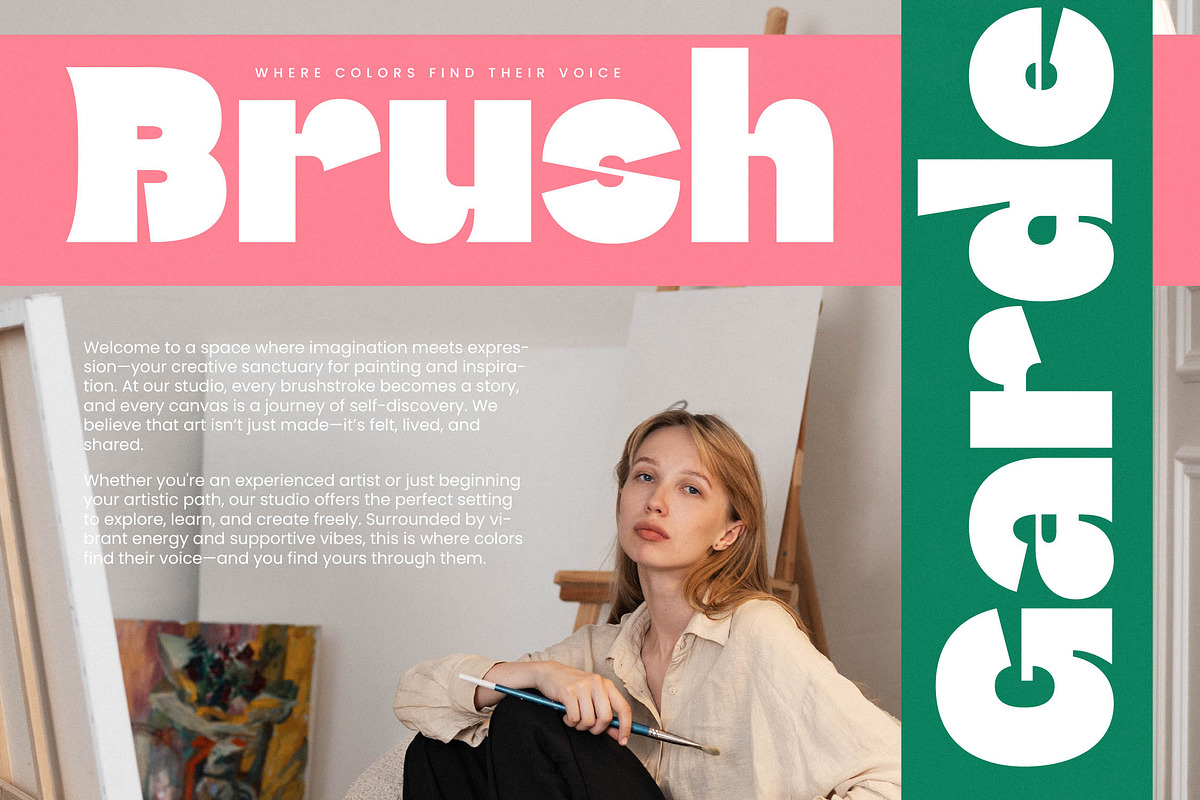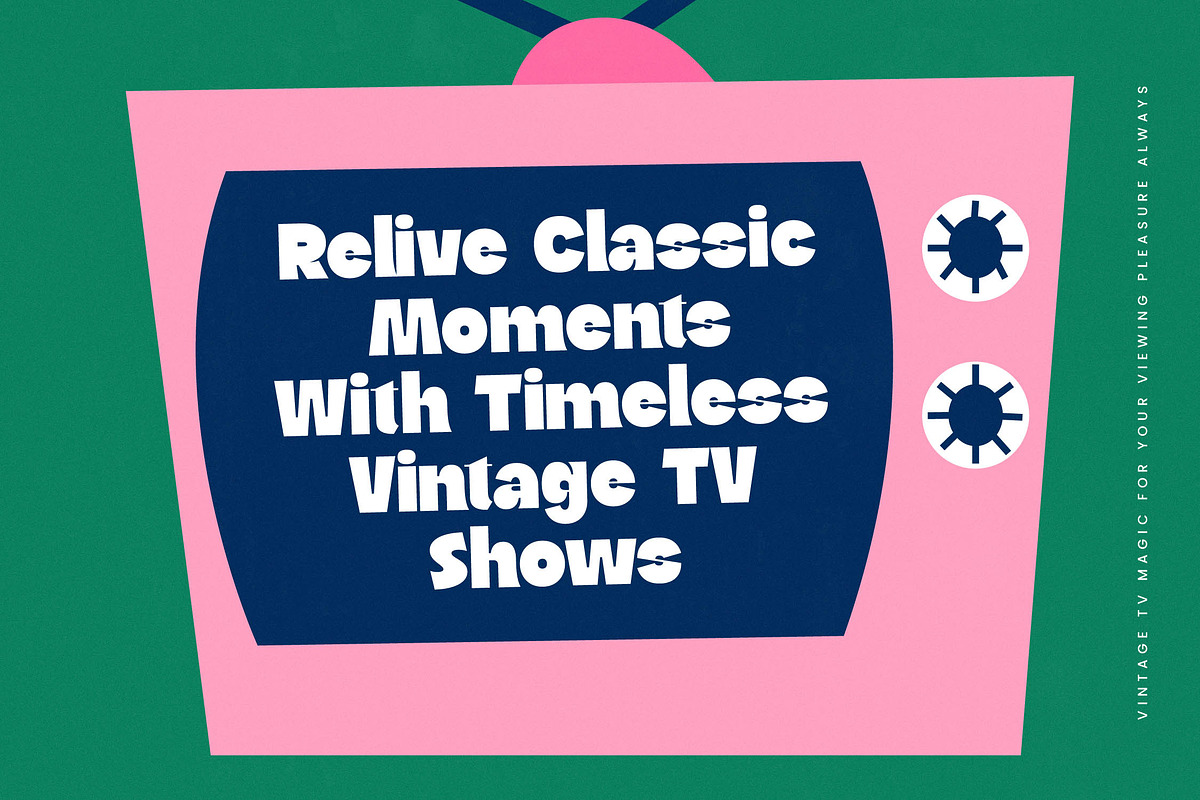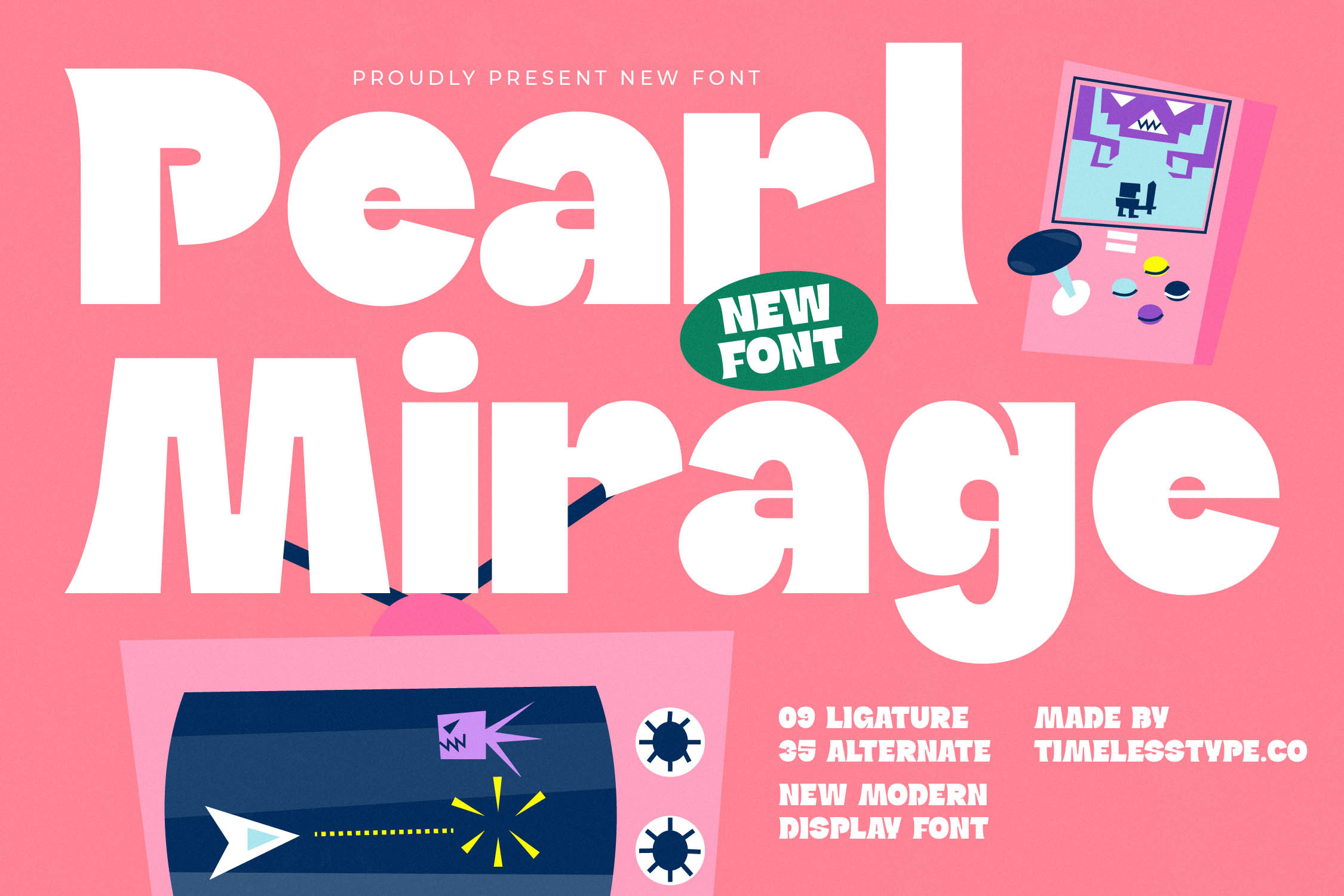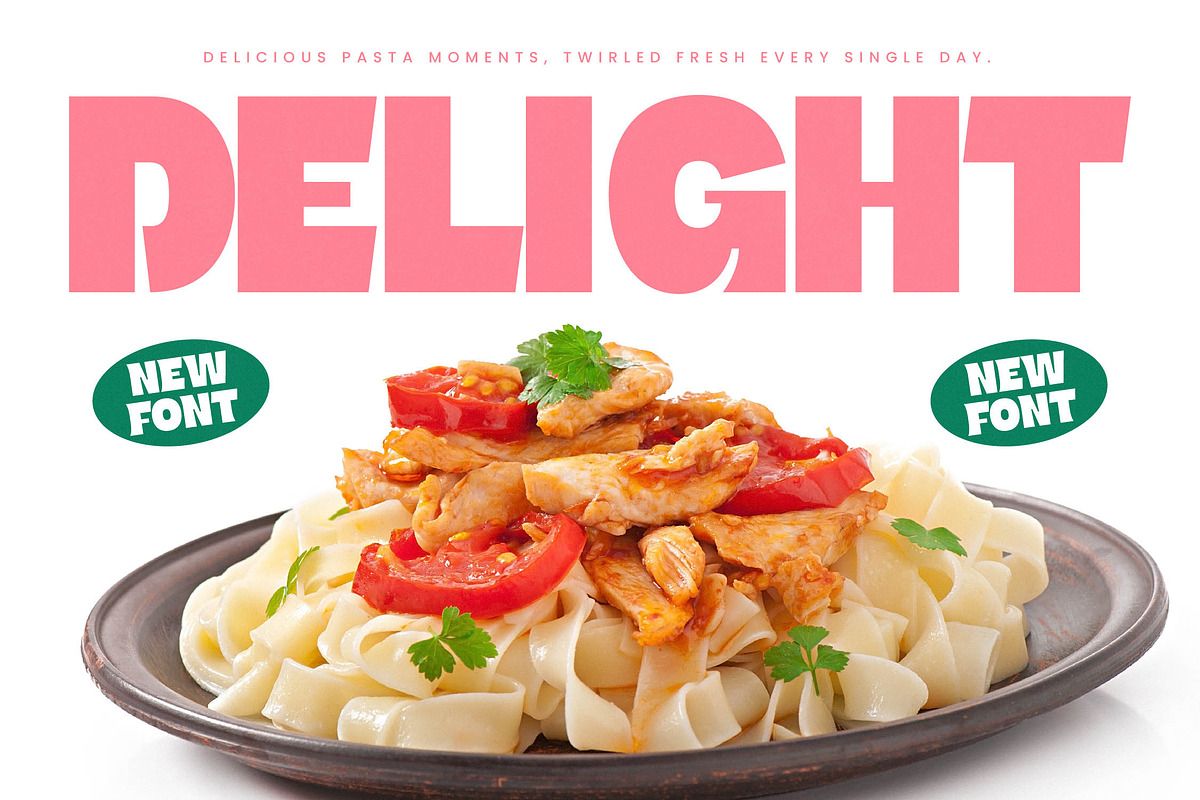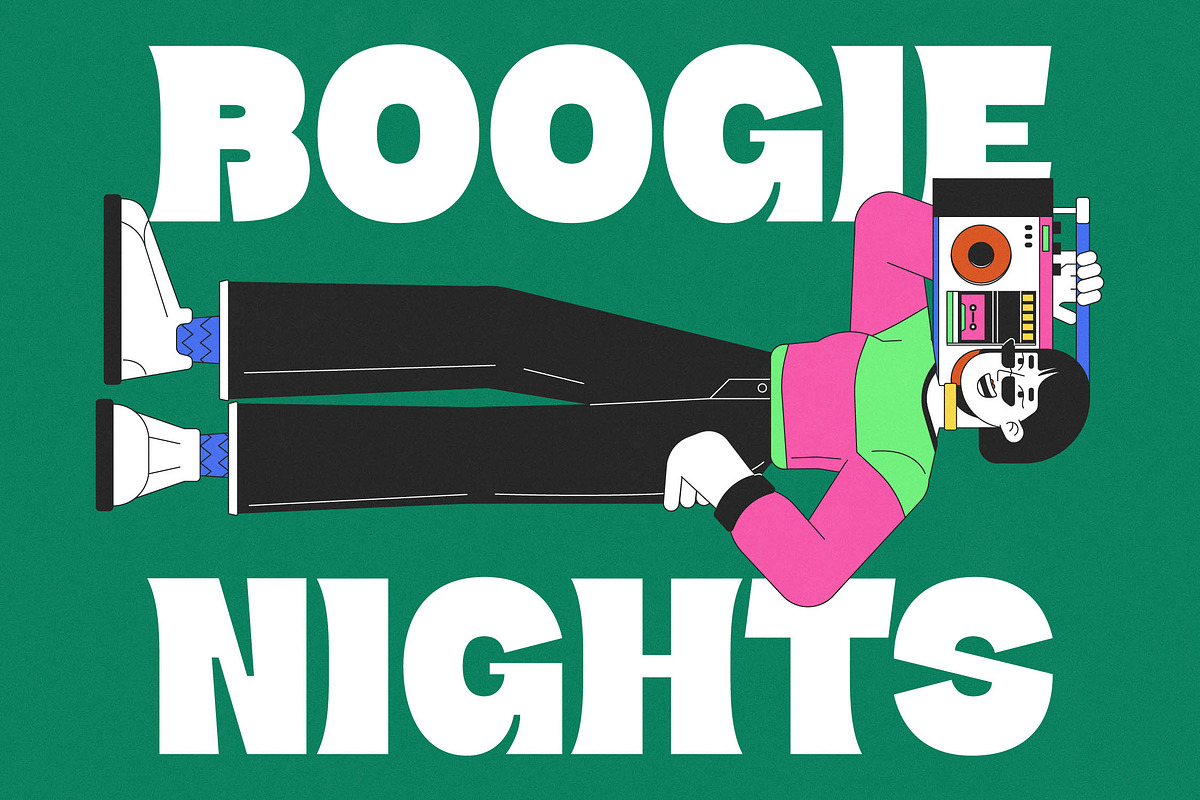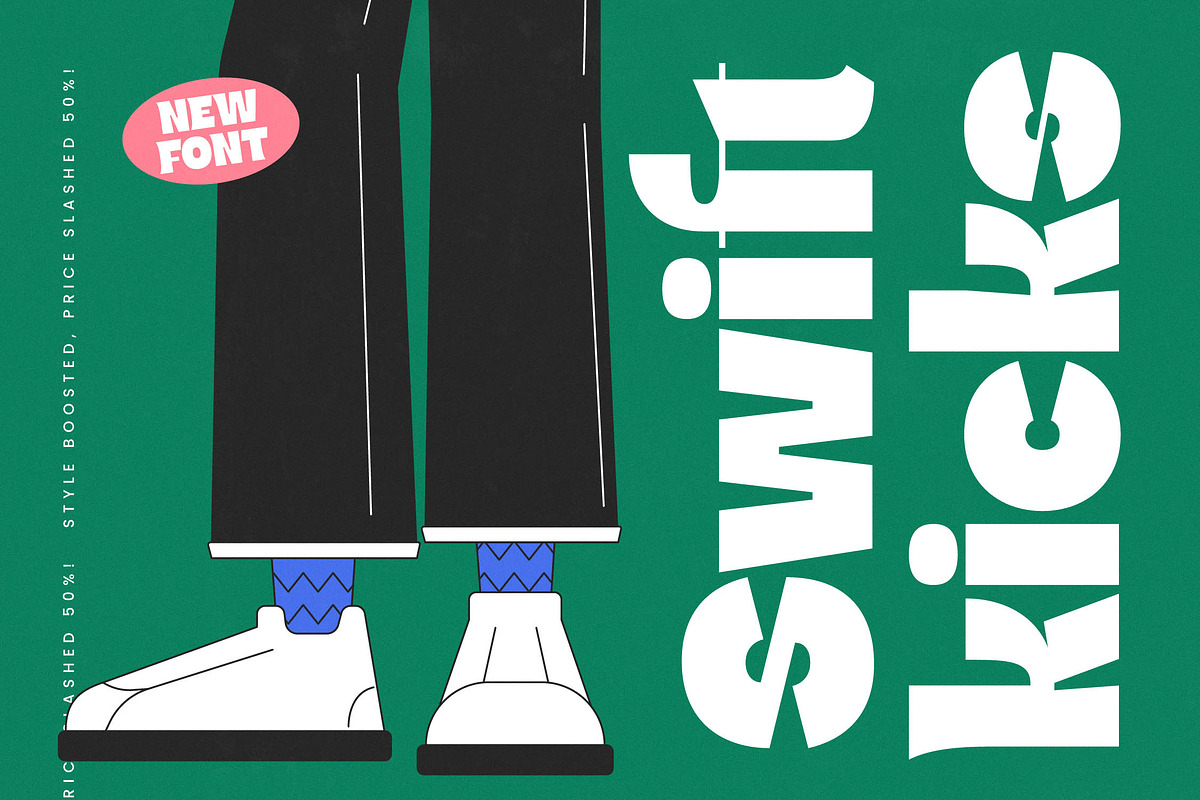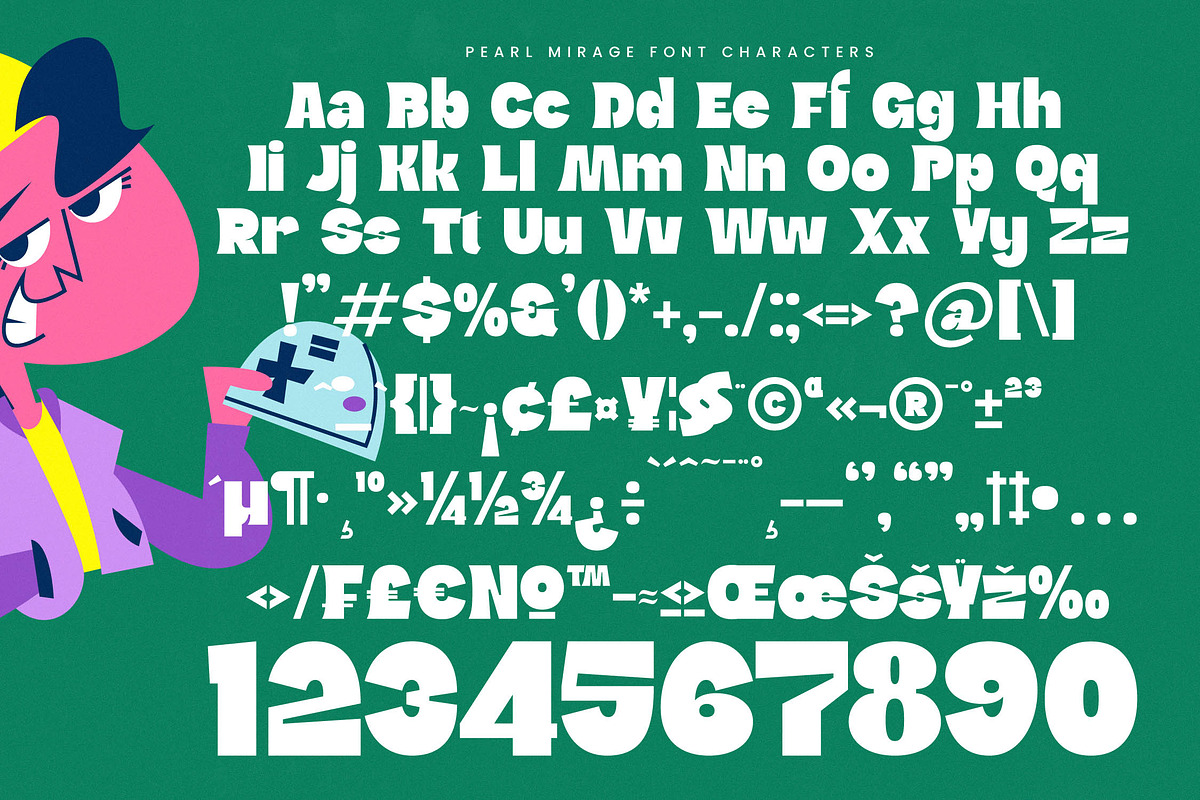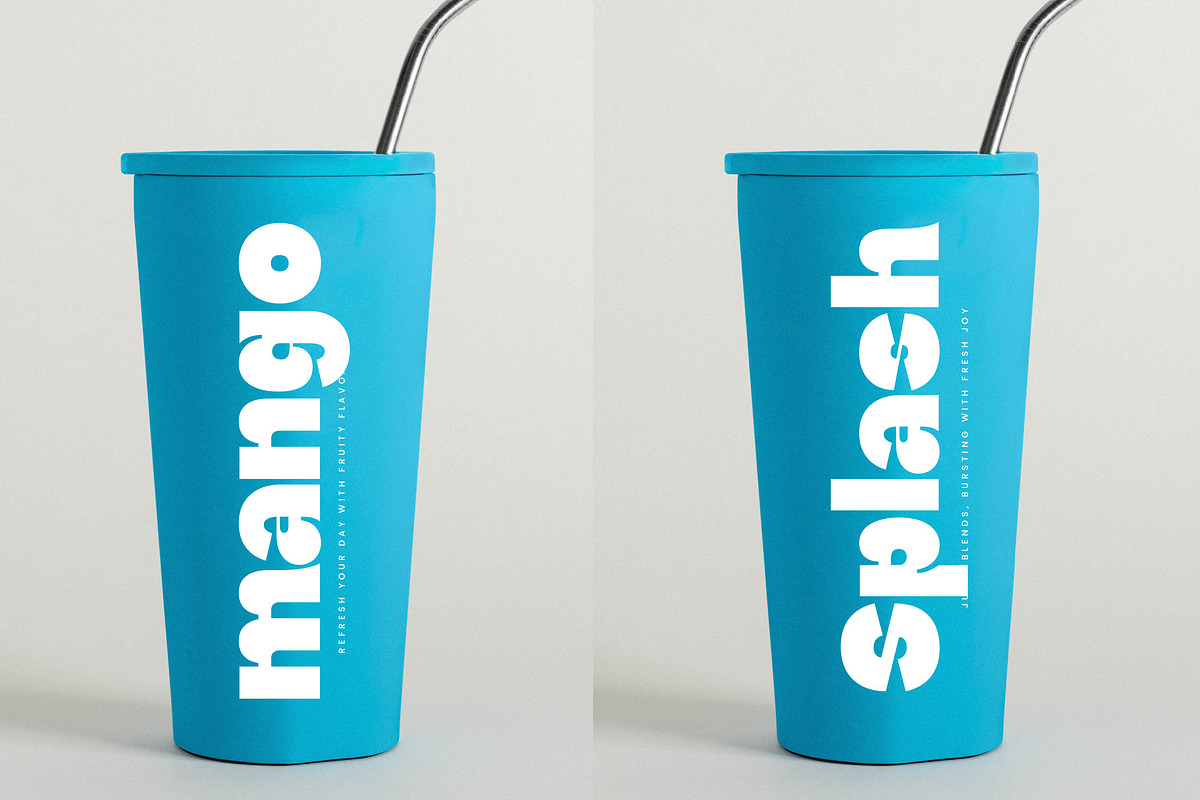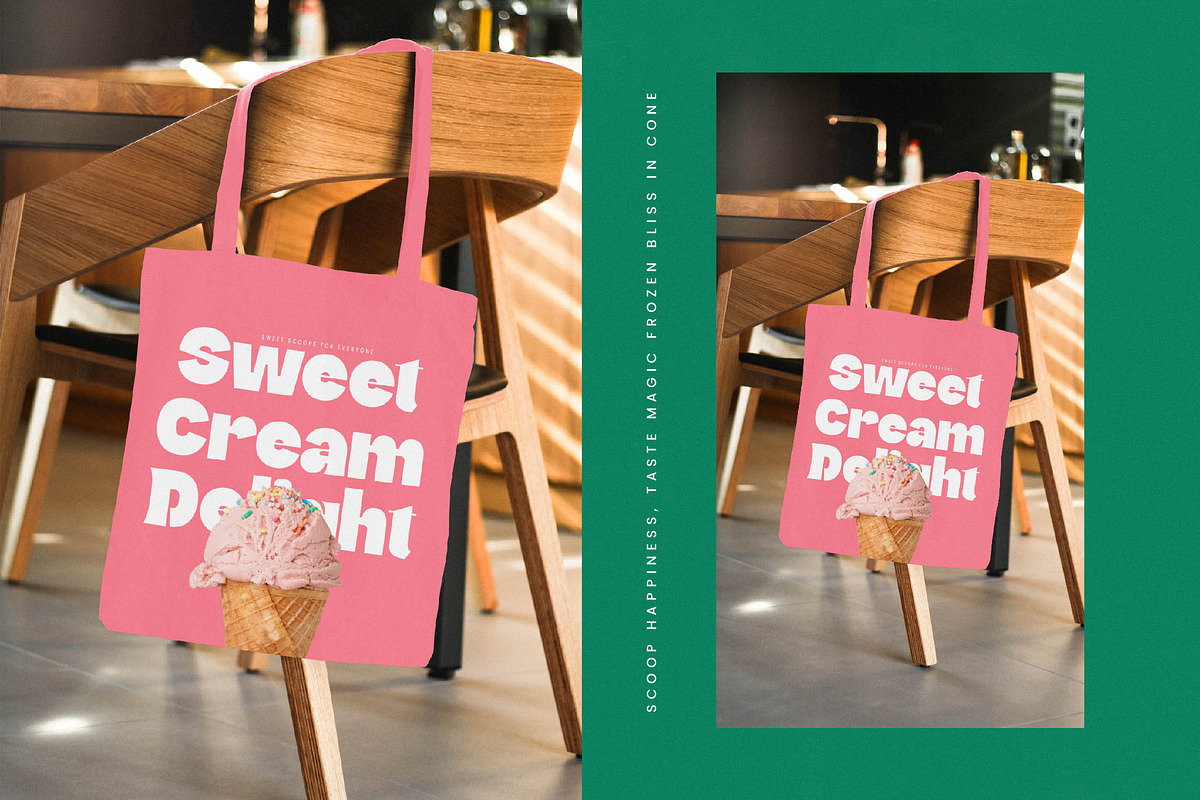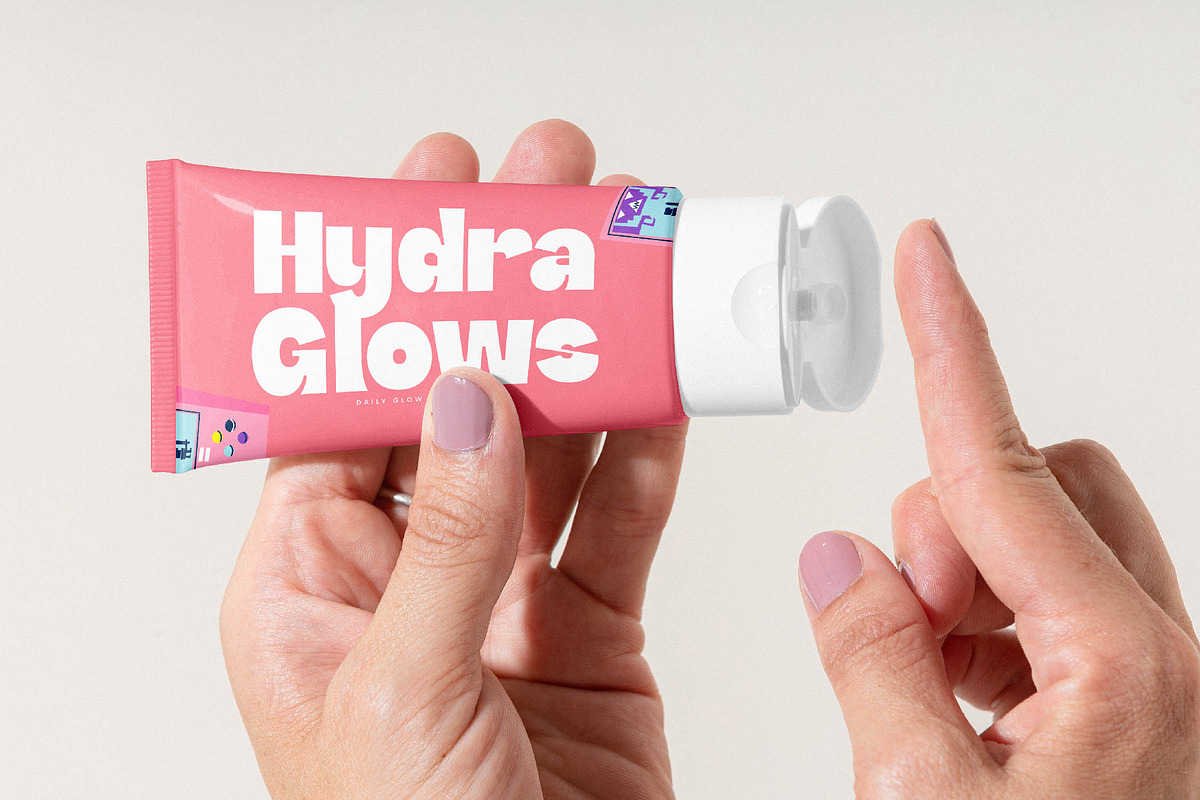
Pearl Mirage Retro Display Font
Pearl Mirage is a vibrant explosion of personality designed to turn every headline into a visual celebration of style and energy. This font captures the essence of modern playfulness with its chunky forms and unexpected curves that demand immediate attention.
Inspired by the golden era of 90s cartoons and the pixelated charm of retro handheld games, this typeface bridges the gap between nostalgic comfort and contemporary edge. It evokes a sense of whimsical rebellion, perfect for designs that refuse to play by the rules of traditional typography.
As a modern serif display that leans into its funky roots, this typeface provides a massive branding impact for projects seeking a luxury typography feel with a twist. It functions as a high-octane editorial font that balances weight and negative space to create a truly high-contrast serif experience for any digital or print canvas.
Staying ahead of the modern serif trend, this typeface taps into the current demand for character-driven typography that breaks away from minimalism. It is a standout choice among editorial display fonts, offering designers a unique tool to create loud, proud, and memorable visual identities in a crowded marketplace.
This font is engineered for high-visibility logo design and vibrant branding suites that need to pop off the screen or shelf. Whether you are working on innovative packaging, a bold fashion campaign, a unique wedding suite, or a cutting-edge editorial layout, its heavy presence ensures your message is never missed.
To ensure maximum versatility, the package includes a robust set of 9 ligatures and 35 alternates that allow for custom typographic flourishes. With full multilingual support and a wide range of international characters, it provides global accessibility for designers everywhere including specialized swashes for a custom finish.